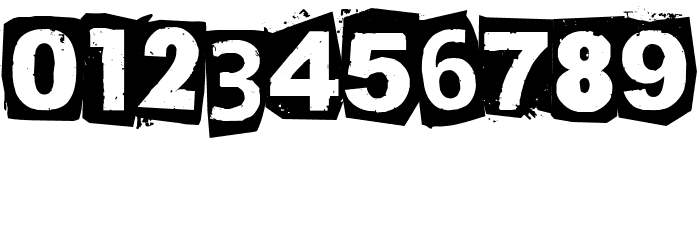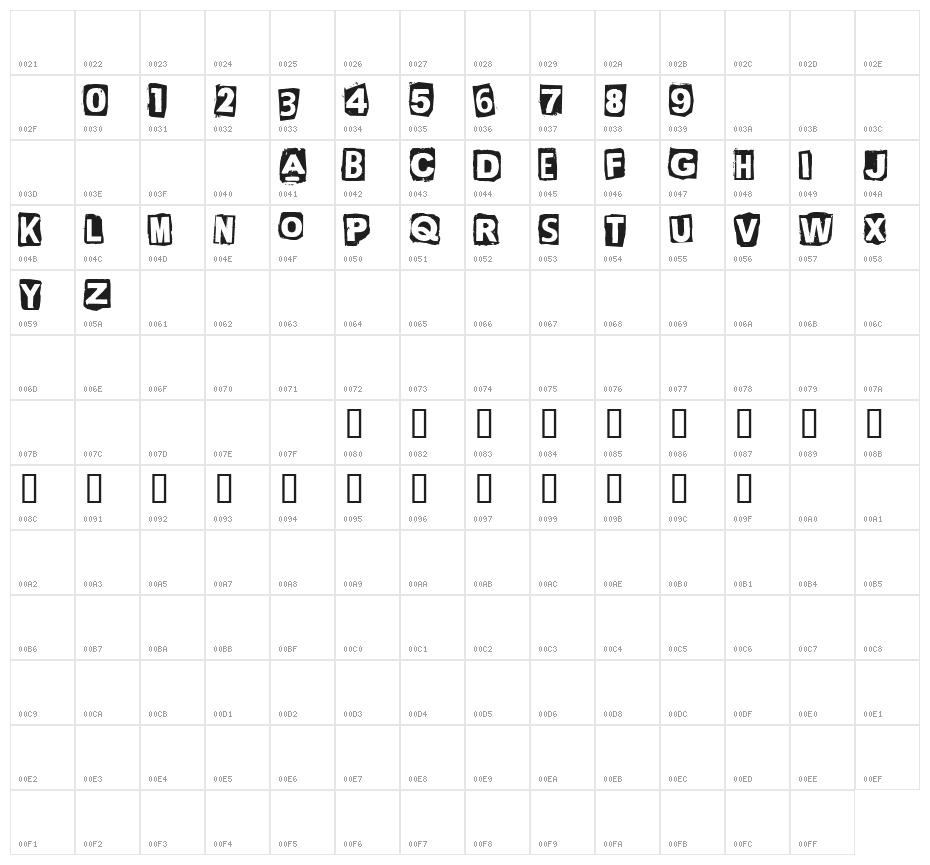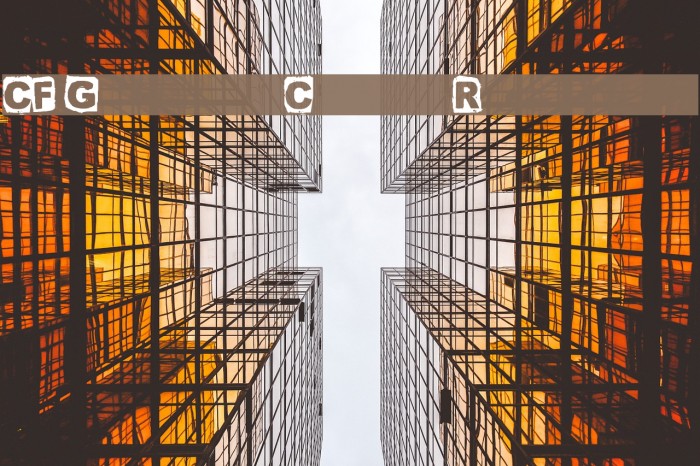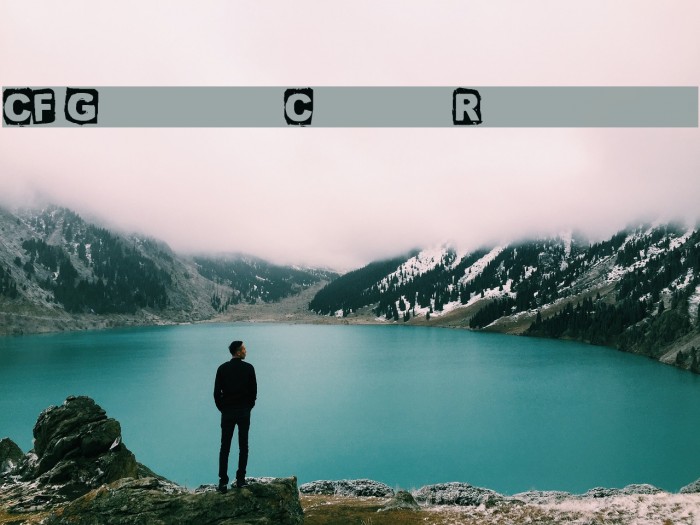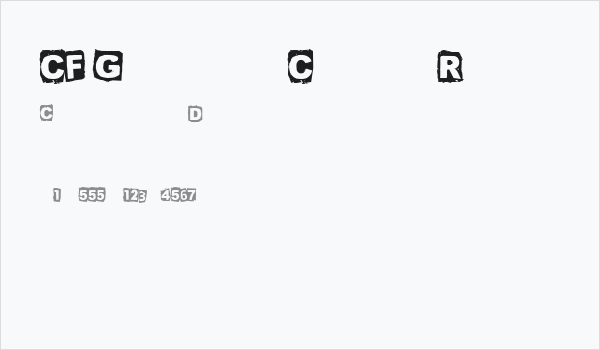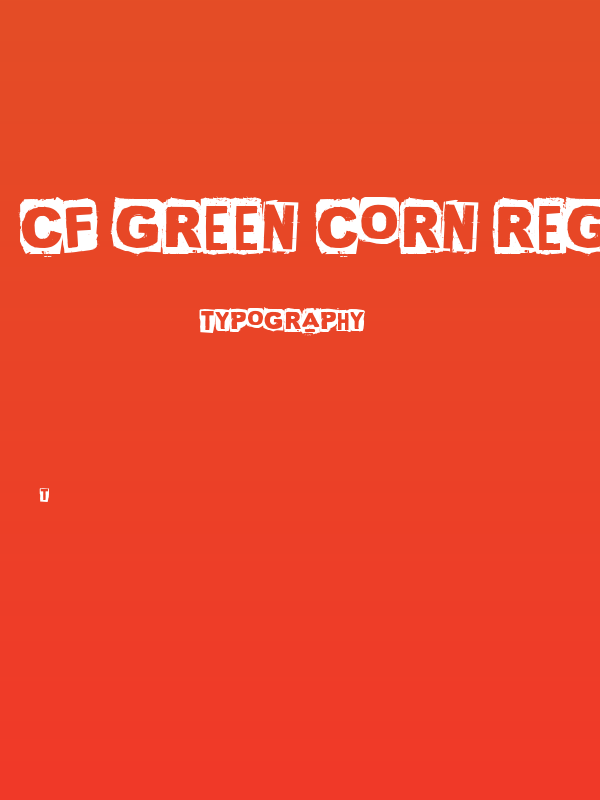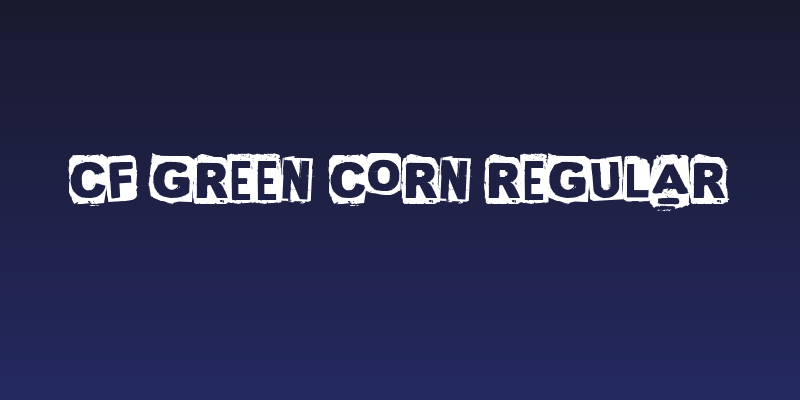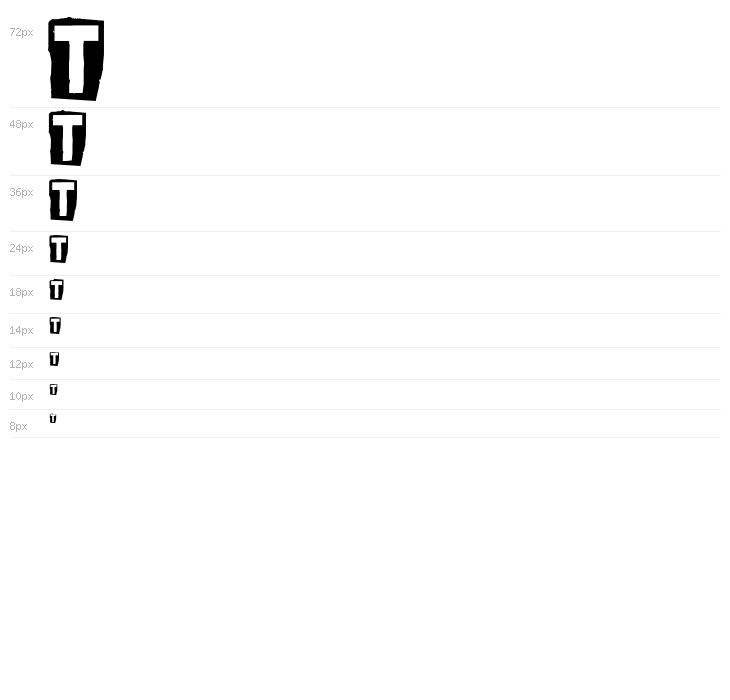
CF Green Corn Regular Font
CF Green Corn Regular Description
This font features a bold and rugged design, characterized by its distressed and grunge-like appearance. Each letter and number is enclosed in a rough, uneven block, giving it a unique, hand-crafted feel. The boldness of the characters ensures high visibility, making it suitable for impactful designs. The irregular edges and textured look add a sense of dynamism and energy, perfect for projects that require a strong visual statement. The font's style is reminiscent of urban street art, making it ideal for creative and edgy applications.
| Proposed Projects | Ideal for posters, album covers, streetwear branding, and any project needing a bold, edgy look. |